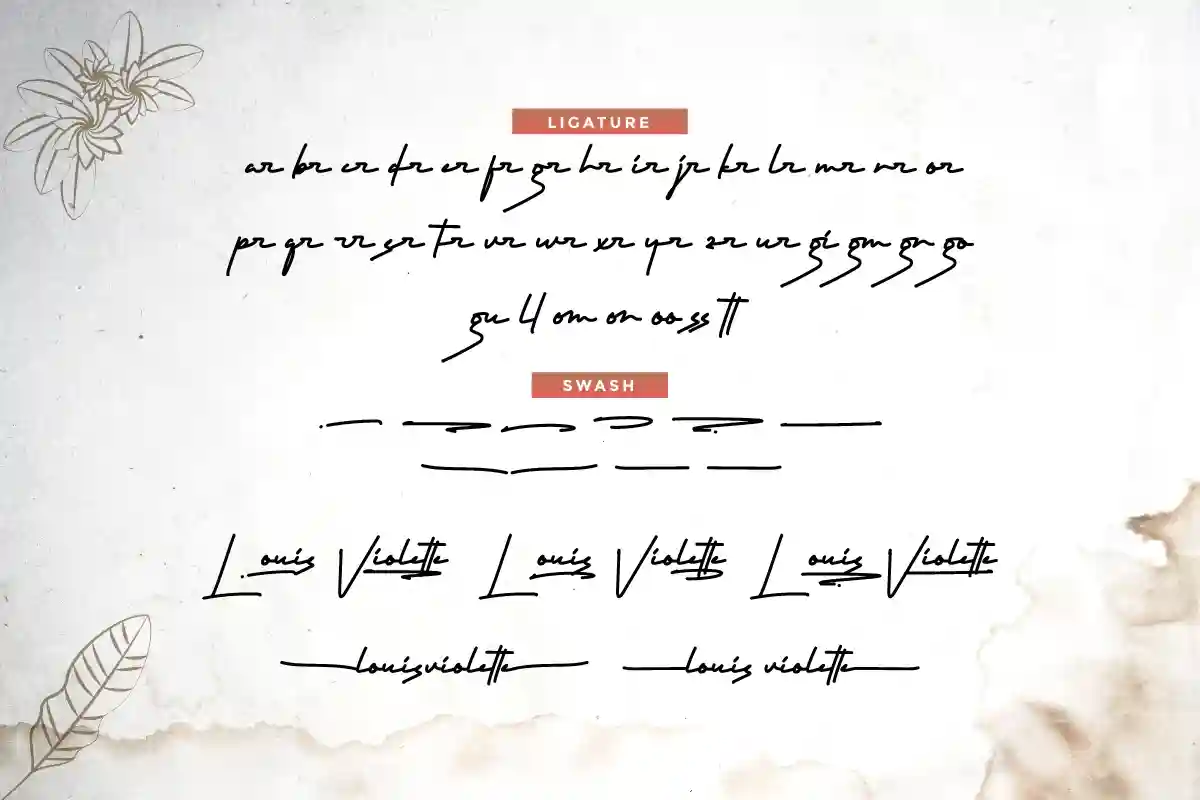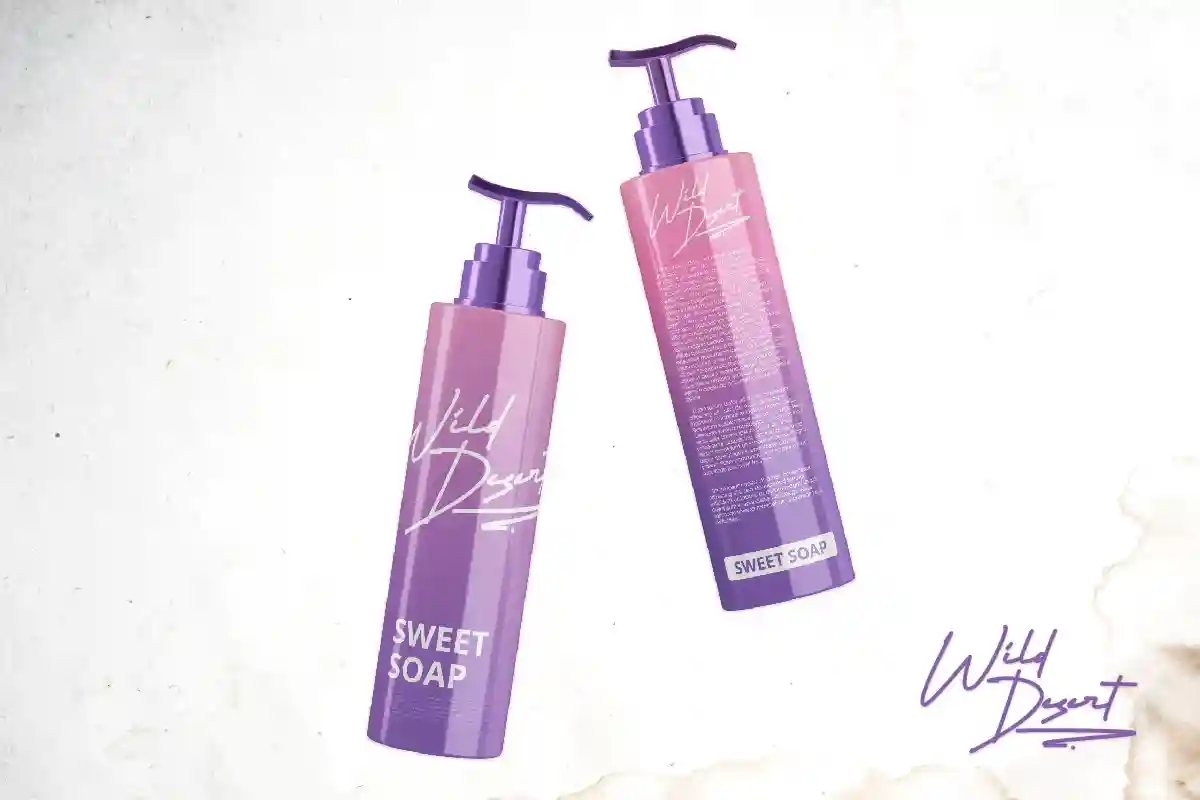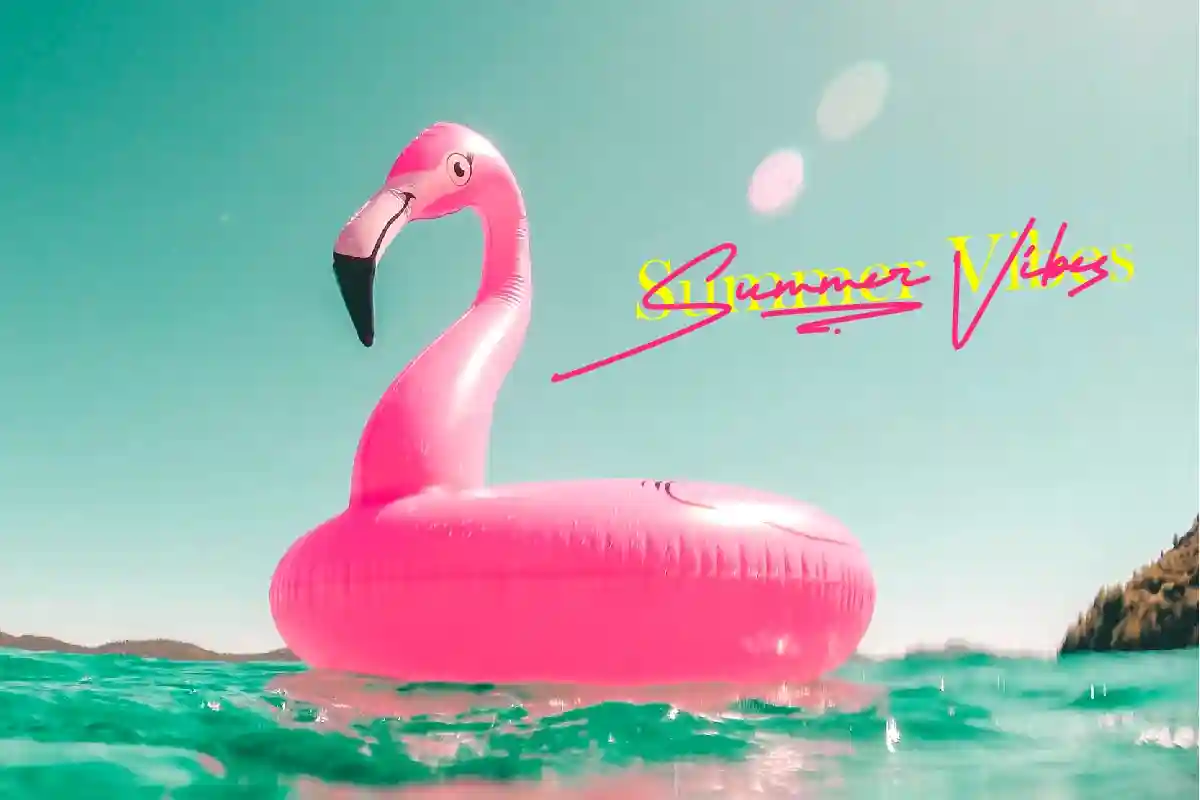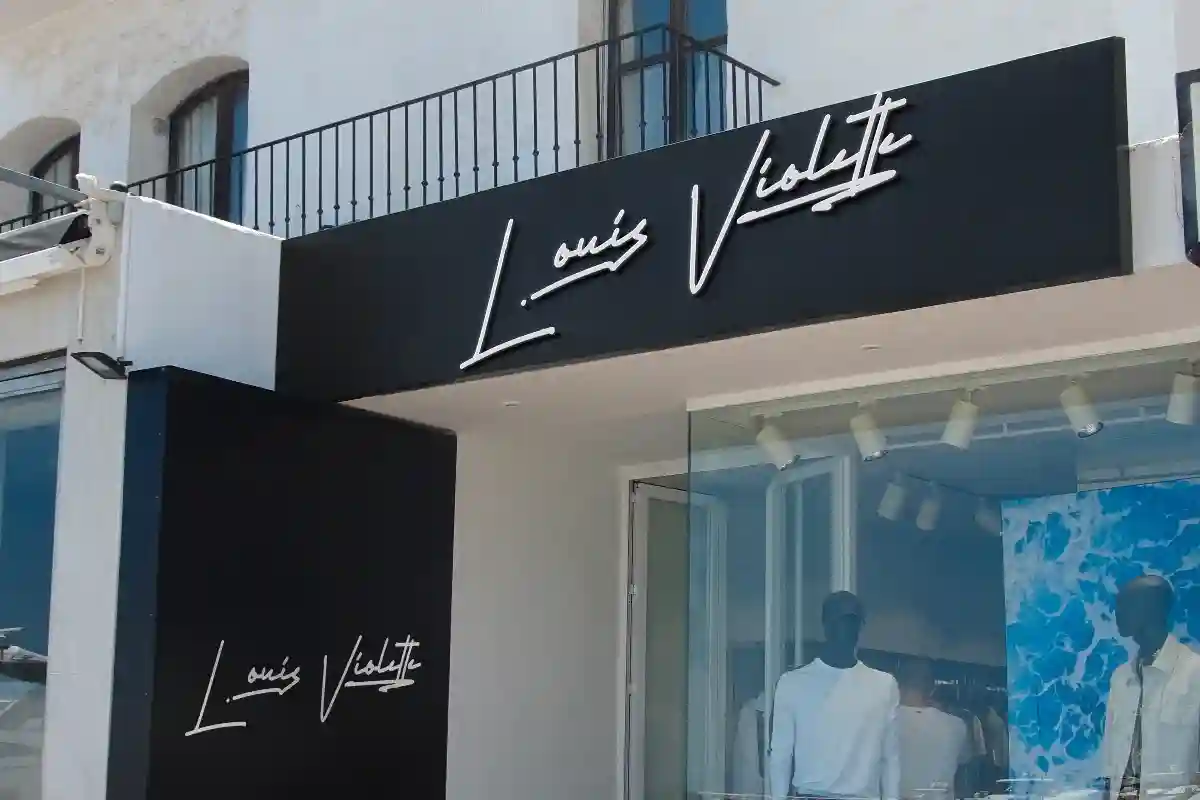
Louis Violette is a classy professional signature handwriting font with modern and elegant characters. This font is crafted carefully in every its single scratch, created to look as close to a natural handwritten script so that it can create the perfect combination on each glyph.
When we make this font, we really want to create a touch that is so free-flowing that it gives a natural impression on its use later. For example, if you want letter ‘s’ that has a flow sketch with letter ‘t’, you can find it in ‘st’ ligature glyph (just type in the text form below for trying). This awesome script is for anyone who are needing of elegance and stylish for their designs.
Looking for a luxury signature font that elevates your brand?Whether you are working on logos, wedding invitations, product packaging, or social media graphics, this font delivers a flawless handwritten look.
Louis Violette Signature Font includes full set of Uppercase and Lowercase Basic Characters, Numerals and Punctuation.